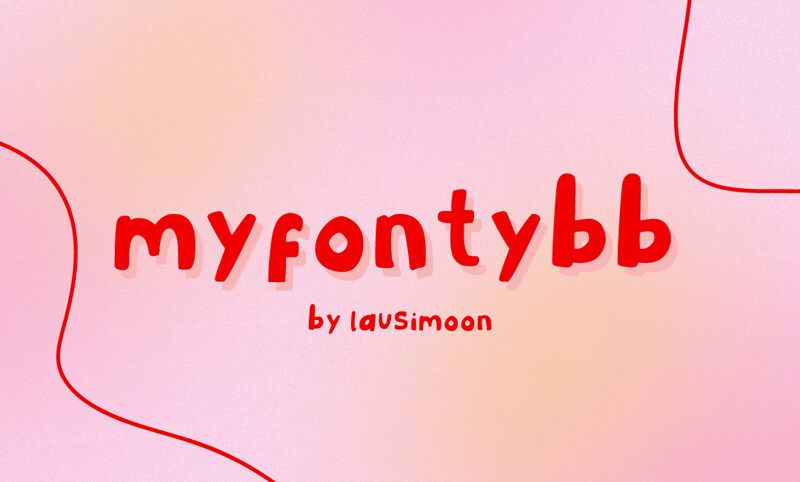
Myfontybb Regular
Myfontybb is a bold, cartoon-style display font designed by Laura López. It's perfect for adding a fun and quirky touch to any project, from logos to invitations and kids' crafts.